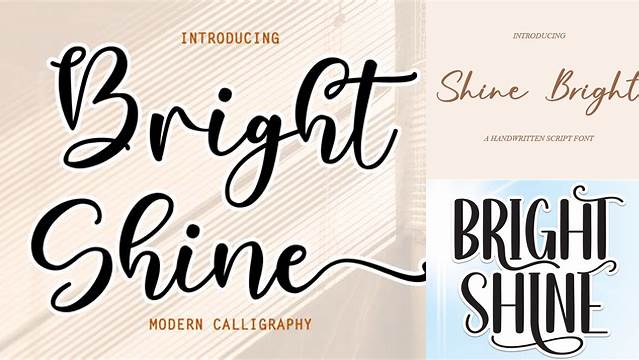
Bright & Shine Font: Free Download & Design Tips
Hey everyone! Today, we're diving into the wonderful world of typography and focusing on a specific gem: the Bright & Shine Regular OTF 400 font. For those of you looking to add a touch of flair and personality to your designs, this font is a fantastic option. And the best part? You can often find a free download! This article is your ultimate guide, covering everything from where to get the font, how to use it effectively, and some design tips to make your projects shine. So, let's get started and explore what makes the Bright & Shine font so special and how to get your hands on it without spending a dime. We'll also look at how to use it in your various projects, from website headers to social media posts, to really make them pop.
Exploring the Design Characteristics of the Bright & Shine Font
Now, let's get into what makes the Bright & Shine font so special! This font typically features a playful and cheerful design, often with a bold and rounded style. The characteristics of the font can vary slightly depending on the specific version or designer, but you can generally expect a font that's easy to read and full of personality. Think of it as a font that can instantly inject a bit of joy into your designs. The font's visual appeal makes it ideal for various applications, from headings and logos to social media graphics and website elements. Its readability ensures that your message is clear and engaging. With its unique flair, Bright & Shine can differentiate your designs and leave a lasting impression on your audience. Therefore, it can be used in designs such as social media quotes or website designs.
Best Uses: Creative Applications for Bright & Shine
The Bright & Shine font is super versatile, and you can use it in tons of different ways. It's perfect for headings and titles, where its bold and eye-catching nature can really grab attention. Think about website headers, blog post titles, or even YouTube thumbnails. The font is also great for creating logos and branding materials, especially if you want a friendly and approachable feel. Consider it for social media graphics, quotes, or promotional materials to add a touch of playfulness. Also, try using it for invitations, greeting cards, or any design where you want to convey a sense of fun and creativity. For any of these things, remember to always use the right one.
Pair Bright & Shine with Other Fonts
To create visually stunning designs, pairing the Bright & Shine font with other fonts can be a great idea. The key is to find combinations that complement each other without clashing. Think about the overall tone and message of your design. For a balanced look, pair Bright & Shine with a clean and simple sans-serif font for body text. This will provide contrast and ensure readability. A good example might be pairing Bright & Shine with a font like Open Sans or Lato. If you want to add a touch of elegance, try pairing Bright & Shine with a classic serif font. However, make sure the serif font isn't too ornate, as this could create too much visual clutter. You can also experiment with script fonts to create a more handwritten feel. Just be mindful of readability and ensure that the script font is easy to understand at the font sizes you are using. With a little experimentation, you'll find the perfect font combinations to enhance your designs.
Bright & Shine Font: Tips for Readability and Legibility
Even with a fun and eye-catching font like Bright & Shine, you want to make sure your text is readable. This is super important, guys! Readability means how easily the text can be read, and legibility refers to how clearly the individual characters can be distinguished. To improve readability, consider the font size. For body text, opt for a larger size that's easy to read. Also, make sure there's enough contrast between the font color and the background. Avoid using light-colored text on a light background or dark text on a dark background. Increase the line spacing (leading) to make the text easier to follow and avoid overcrowding. When using the font for headings or titles, ensure the font size is appropriately sized to grab attention without overwhelming the design. Make sure there is sufficient space around the text to prevent it from feeling cramped.
Bright & Shine Font: Conclusion
So there you have it, guys! The Bright & Shine Regular OTF 400 font is a fantastic, free option for sprucing up your designs. From finding it online to getting it installed and using it to create killer designs, we've covered everything you need to know. Remember to always respect the licensing terms and enjoy experimenting with this fun and versatile font! Happy designing, and let your creativity shine!